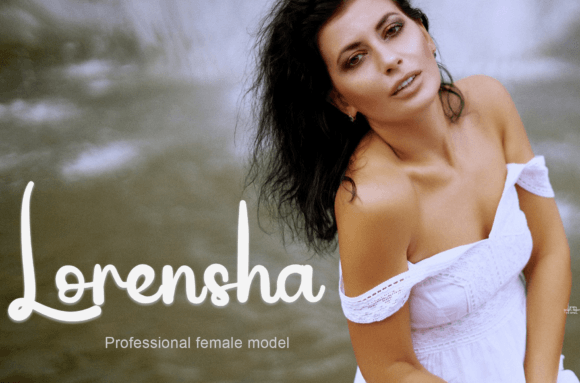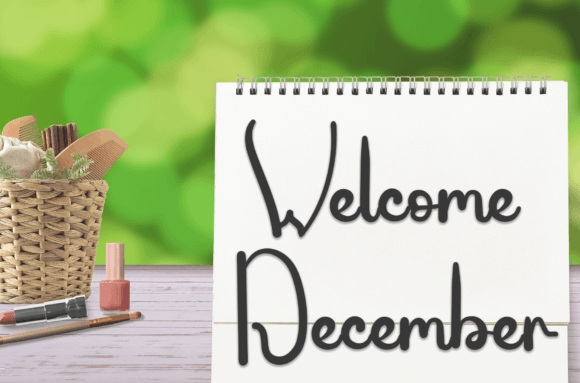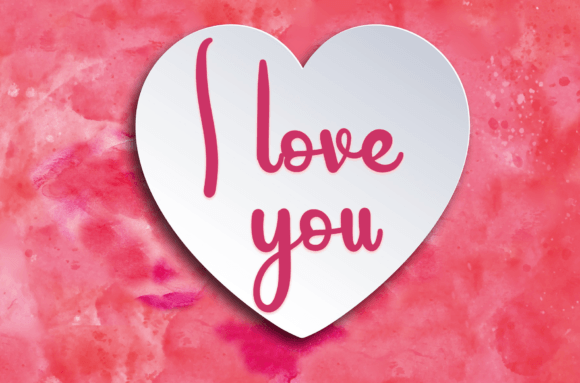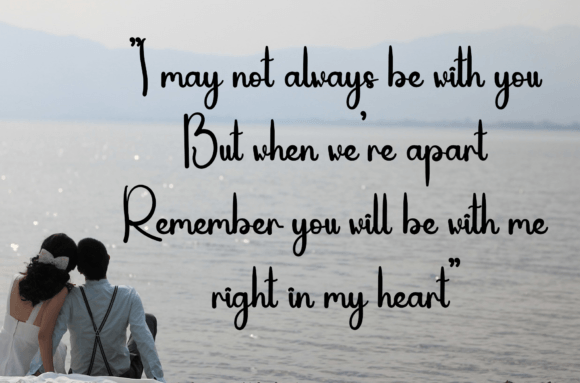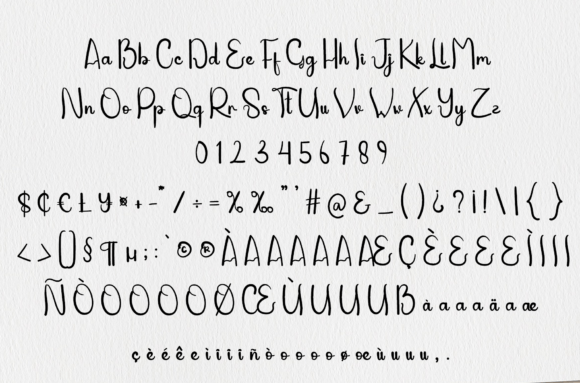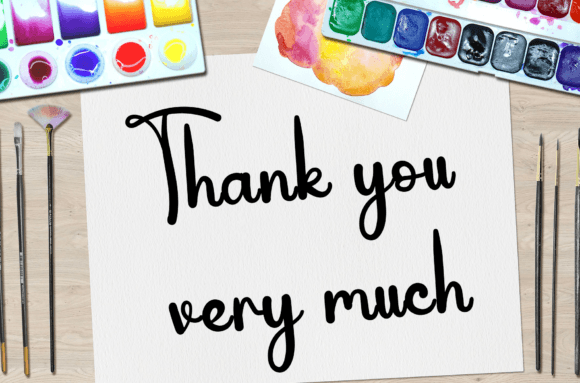
Introducing Family Font: The Perfect Handwritten Font for Your Creative Projects
Are you a designer, crafter, or DIY enthusiast looking for a unique and elegant font to add a personal touch to your projects? Look no further than Family Font, a lovely handwritten font that’s perfect for a wide range of applications. In this article, we’ll explore the features and benefits of Family Font, and show you how to make the most of this versatile and beautiful font.
What is Family Font?
Family Font is a carefully crafted handwritten font that’s designed to bring a touch of warmth and personality to your projects. With its elegant and flowing script, Family Font is perfect for creating beautiful wall displays, wedding invitations, social media post logos, advertisements, product packaging, product design, labels, photography, watermarks, invitations, stationery, and any other project that requires a taste for handwriting.
Key Features of Family Font
- Handwritten script: Family Font features a beautiful, handwritten script that’s perfect for adding a personal touch to your projects.
- Elegant and flowing: The font’s elegant and flowing design makes it perfect for creating beautiful and sophisticated designs.
- Versatile: Family Font is versatile and can be used for a wide range of projects, from wedding invitations to product packaging.
- Easy to read: Despite its elegant design, Family Font is easy to read, making it perfect for body text and other applications where readability is important.
Benefits of Using Family Font
So why choose Family Font for your projects? Here are just a few benefits of using this beautiful font:
- Adds a personal touch: Family Font’s handwritten script adds a personal touch to your projects, making them stand out from the crowd.
- Creates a unique look: With Family Font, you can create a unique and distinctive look that’s all your own.
- Perfect for branding: Family Font is perfect for creating a consistent brand identity across all your marketing materials.
Using Family Font in Your Projects
So how can you use Family Font in your projects? Here are a few ideas to get you started:
- Wedding invitations: Use Family Font to create beautiful and elegant wedding invitations that set the tone for your special day.
- Social media graphics: Use Family Font to create eye-catching social media graphics that stand out from the crowd.
- Product packaging: Use Family Font to add a personal touch to your product packaging and make your products stand out.
- Wall displays: Use Family Font to create beautiful wall displays that add a touch of elegance to any room.
Tips and Tricks for Getting the Most out of Family Font
Here are a few tips and tricks for getting the most out of Family Font:
- Experiment with different colors: Family Font looks great in a wide range of colors, so don’t be afraid to experiment and find the perfect color for your project.
- Use it with other fonts: Family Font pairs well with a wide range of other fonts, so feel free to get creative and try out different combinations.
- Pay attention to spacing: Make sure to pay attention to spacing when using Family Font, as it can make a big difference in the overall look and feel of your project.
In conclusion, Family Font is a beautiful and versatile handwritten font that’s perfect for a wide range of creative projects. With its elegant and flowing script, Family Font adds a personal touch to any project and creates a unique and distinctive look. Whether you’re a designer, crafter, or DIY enthusiast, Family Font is a great choice for anyone looking to add a touch of elegance and sophistication to their work.